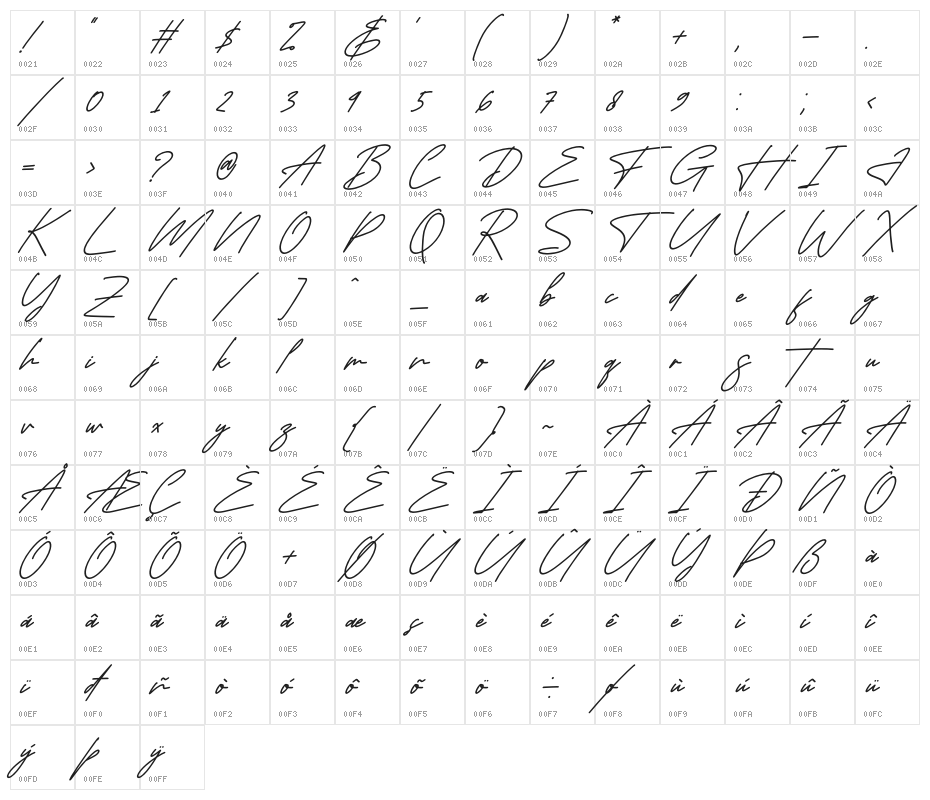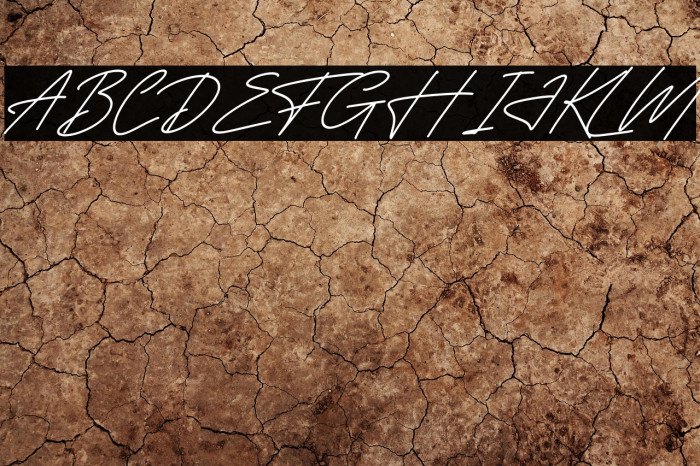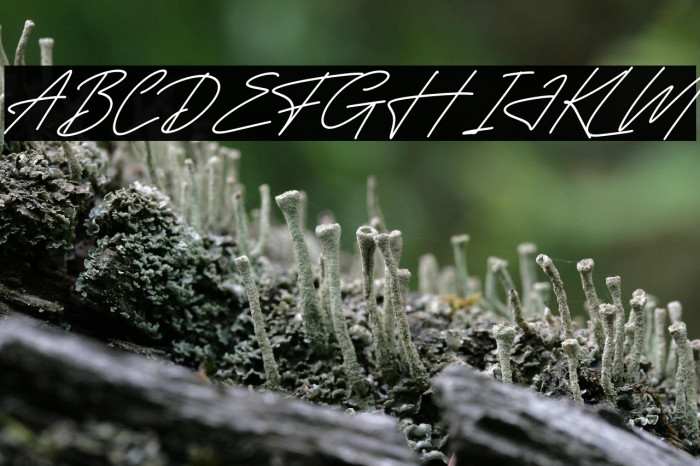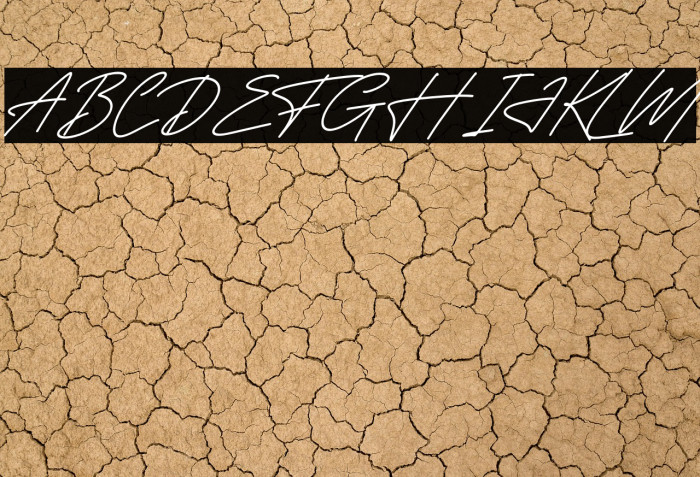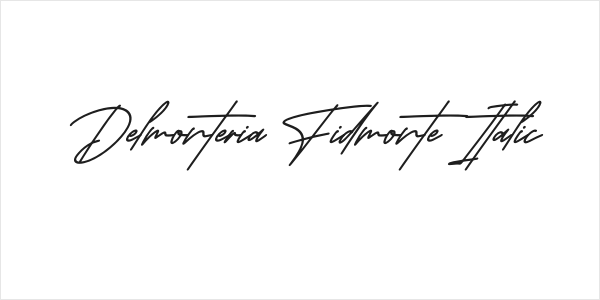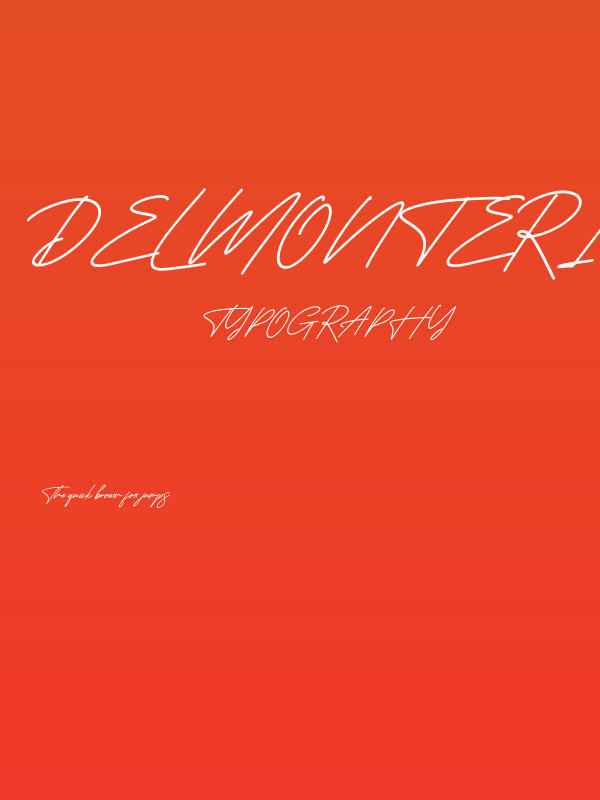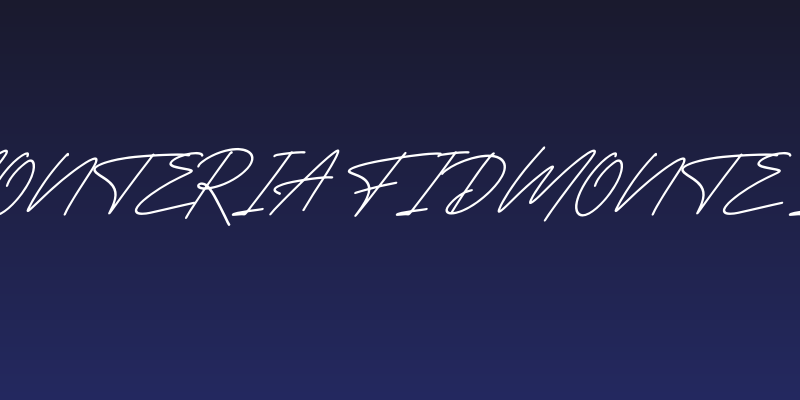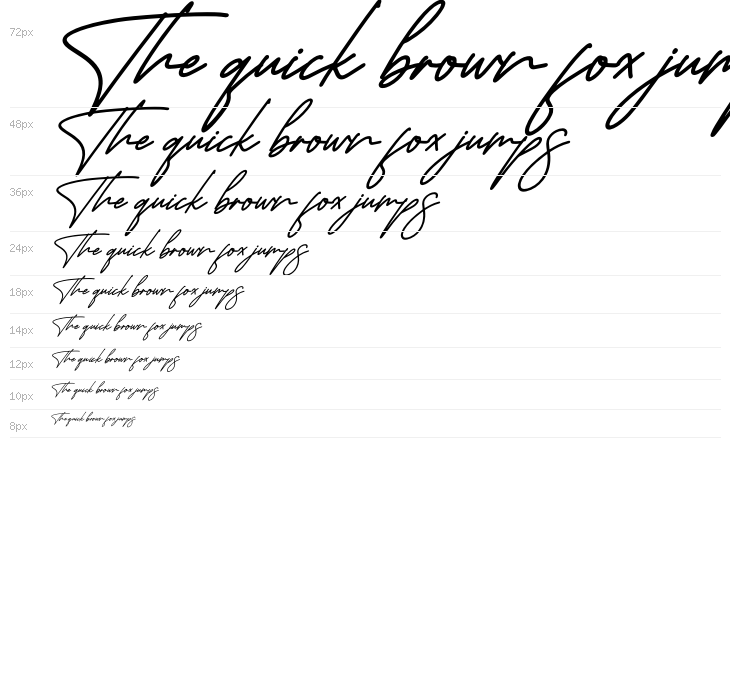
Delmonteria Fidmonte Italic Font
Delmonteria Fidmonte Italic Description
This font exhibits a dynamic and fluid cursive style, characterized by its elegant, flowing strokes that mimic natural handwriting. The letters are interconnected, creating a seamless and continuous script that exudes sophistication and grace. The uppercase letters maintain a consistent height, while the lowercase letters vary slightly in size, adding to the handwritten feel. The numerals and special characters are crafted with the same fluidity, ensuring a cohesive look across all text. This font is particularly well-suited for projects that require a personal touch or an artistic flair.